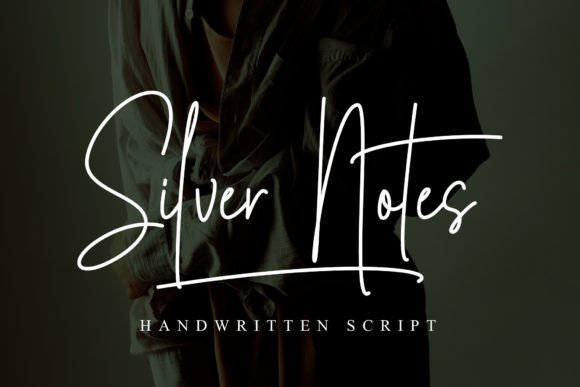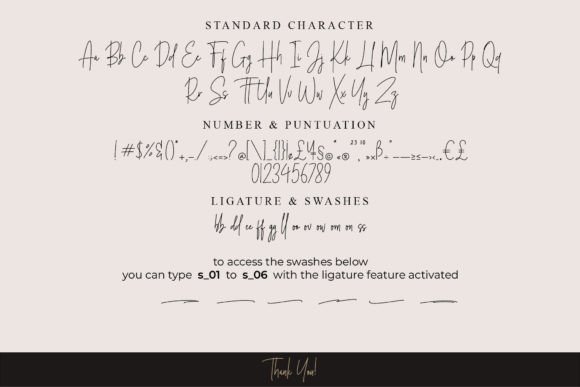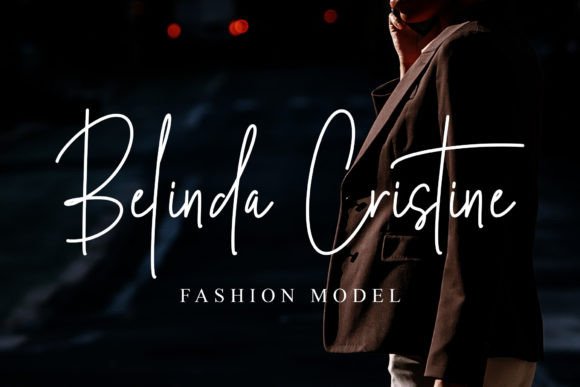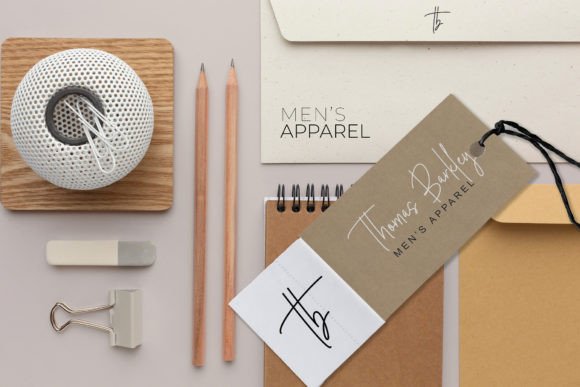
About Silver Notes Font Download
The Silver Notes Font Download is a stylish handwritten script with a bold character in every letter. It was designed to make your text look elegant and professional while maintaining a modern handwritten feel. Because of its versatile style, Silver Notes is an excellent choice for branding, packaging, wedding stationery, and digital designs.
A Handwritten Script with Strong Personality
Each stroke of Silver Notes carries strength and style. Unlike plain fonts, this Silver Notes typeface adds depth and charm to any project. As a result, it is perfect for designs where elegance and uniqueness are equally important.
Perfect for Signatures and Personal Branding
A signature font should be both stylish and clear. The Silver Notes Font is an excellent option for signatures, personal branding, and custom watermarks. Moreover, it ensures your work feels personal and professional at the same time.
Packaging and Business Designs with Silver Notes
Good packaging requires fonts that stand out. The Silver Notes handwritten font is ideal for labels, product packaging, and business cards. In addition, its strong strokes ensure that designs remain readable while still stylish, making it a reliable choice for professional use.
Wedding and Stationery Projects
Wedding invitations, menus, and stationery deserve a font that feels personal and refined. The Silver Notes script font brings romance and sophistication to wedding materials. Therefore, it is a favorite among designers working in event design.
Digital Content and Social Media Graphics
Silver Notes is not limited to print. For example, it works beautifully on websites, Instagram posts, Pinterest graphics, and YouTube thumbnails. The Silver Notes Font Download integrates seamlessly with Canva, Photoshop, and Illustrator, giving designers freedom and flexibility.
Why Designers Choose Silver Notes Typeface
Designers often want fonts that combine elegance with usability. Many handwritten fonts lose clarity at smaller scales, but the Silver Notes handwritten script stays legible while keeping its stylish character. This makes it a practical option for both professionals and hobbyists.